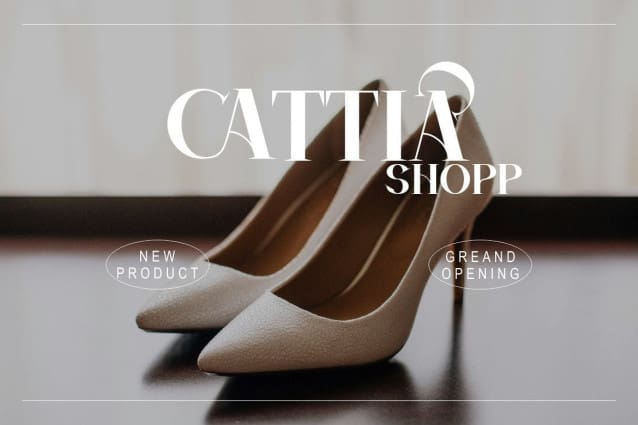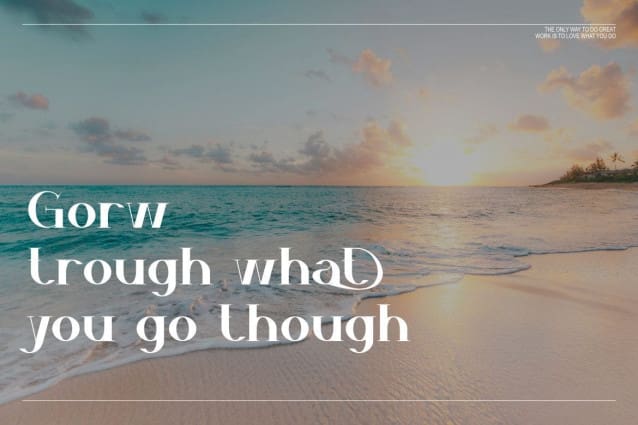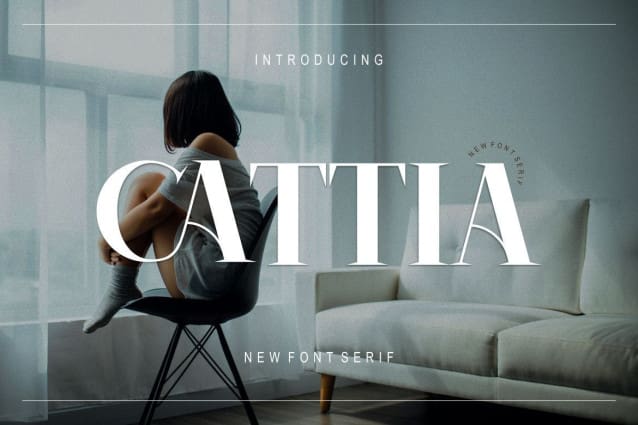
Cattia Serif Font
Cattia Serif Font is a modern and authentic font. Perfect for professional and branding needs of a product. This font is suitable for any branding project like quotes, logo, blog header, poster, banner, letter, invitation, stationery, etc… Designed as a versatile and flexible tool that can be used on a range of projects and media. exceptional in a wide range of contexts.